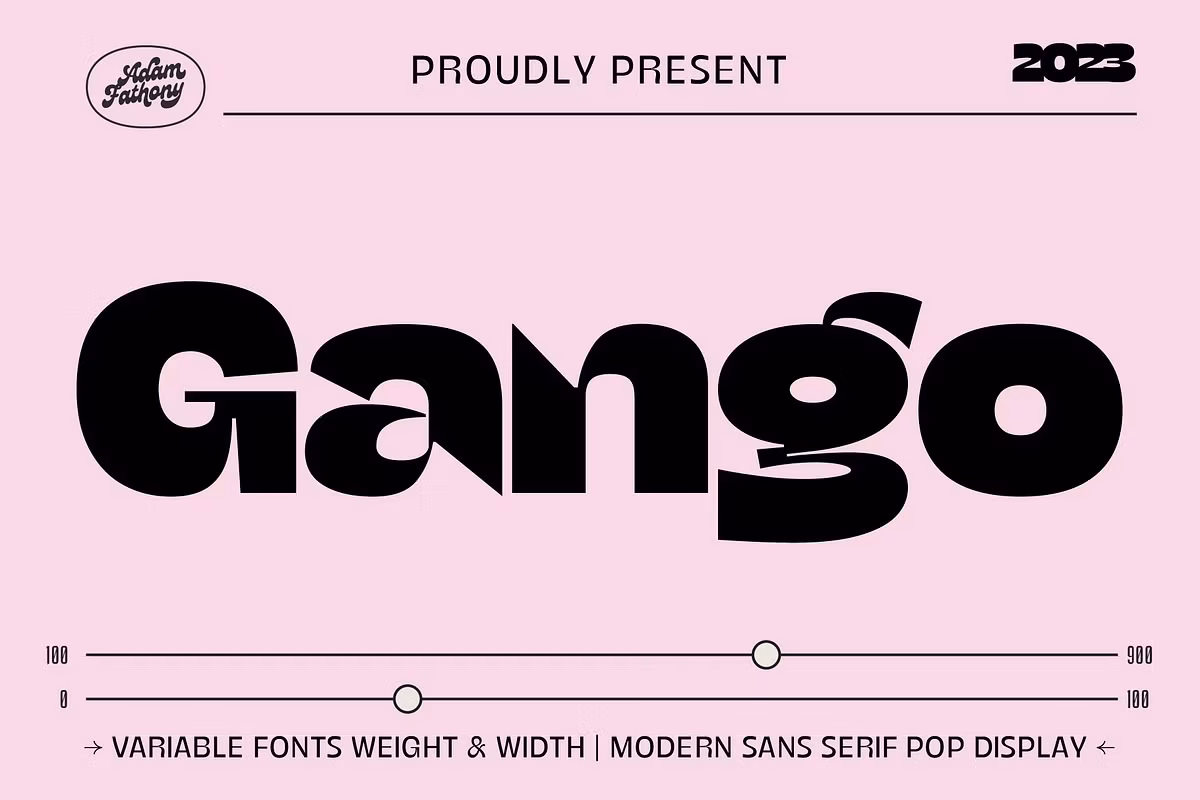
Versatile, modern, and highly flexible, Gango - Variable Fonts Free Download is a contemporary typeface that adapts to your design needs with a range of customizable weights and styles. Perfect for branding, web design, editorial layouts, and product packaging, Gango allows you to seamlessly adjust the weight, width, and style of the font, making it ideal for a wide variety of applications.
Its clean, geometric design ensures excellent readability and a polished, professional look across both digital and print mediums. Whether you're designing for a sleek modern brand or a creative layout, Gango provides endless possibilities for typography.